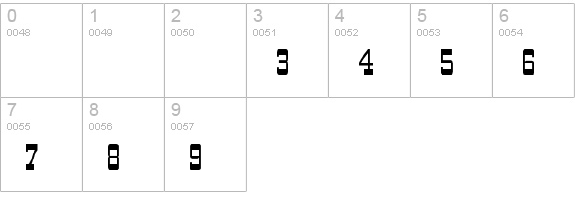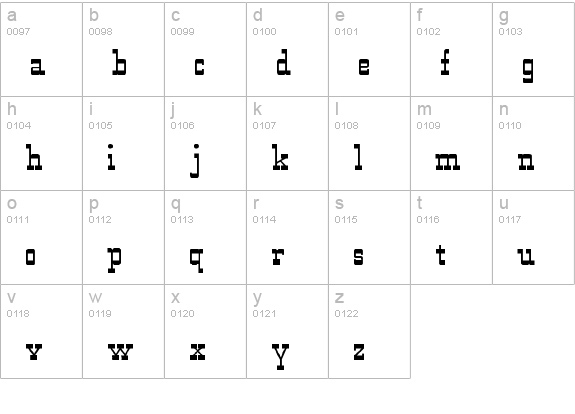
WildWest-Normal Font Details
WildWest-Normal is the standard, neutral variant in the WildWest typeface family \xE2\x80\x94 well suited to general body text, paragraphs, and standard typographic work.
WildWest-Normal font is a unique and captivating typeface that embodies the spirit of the untamed Wild West. With its rugged and rustic design, this font will transport you to the era of cowboys, saloons, and endless adventures on the open plains. Each letter is intricately crafted, featuring bold and expressive strokes that bring to life the raw energy and excitement of the Wild West. This font is perfect for adding a touch of authenticity and nostalgia to your projects. Whether you're designing a poster for a western-themed event, creating a vintage-inspired logo, or even crafting a personalized invitation, WildWest-Normal font will effortlessly capture the essence of the Old West. One of the best things about WildWest-Normal font is that it is freely available to download at FontsMarket.com. You can bring the spirit of the Wild West to your designs without having to spend a penny. Embrace the rugged charm and timeless appeal of this font and let it transport you to a bygone era of adventure and daring. So, why wait? Download WildWest-Normal font now and unleash your creativity with this one-of-a-kind typeface. Whether you're a professional designer or a casual enthusiast, this font will be a valuable addition to your collection. Let the Wild West inspire your imagination and create designs that truly stand out.